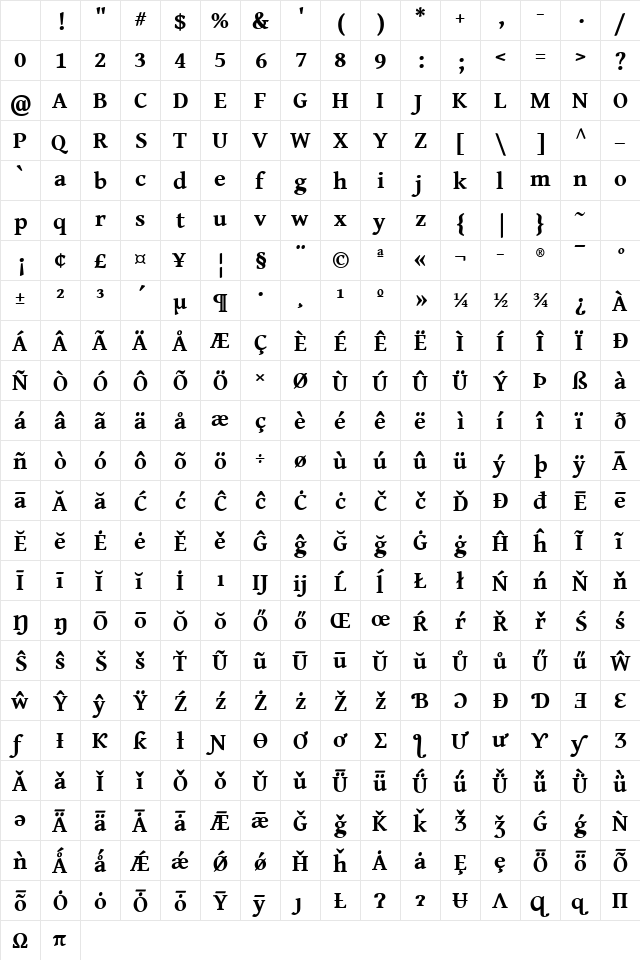
Complete Gentium Book Basic Bold glyph index. Displaying only characters natively supported by Gentium Book Basic Bold font.
Gentium Book Basic is a composed and adaptable typeface that performs quietly and consistently across a wide range of design contexts. Its bold stroke weight gives it real presence on the page.